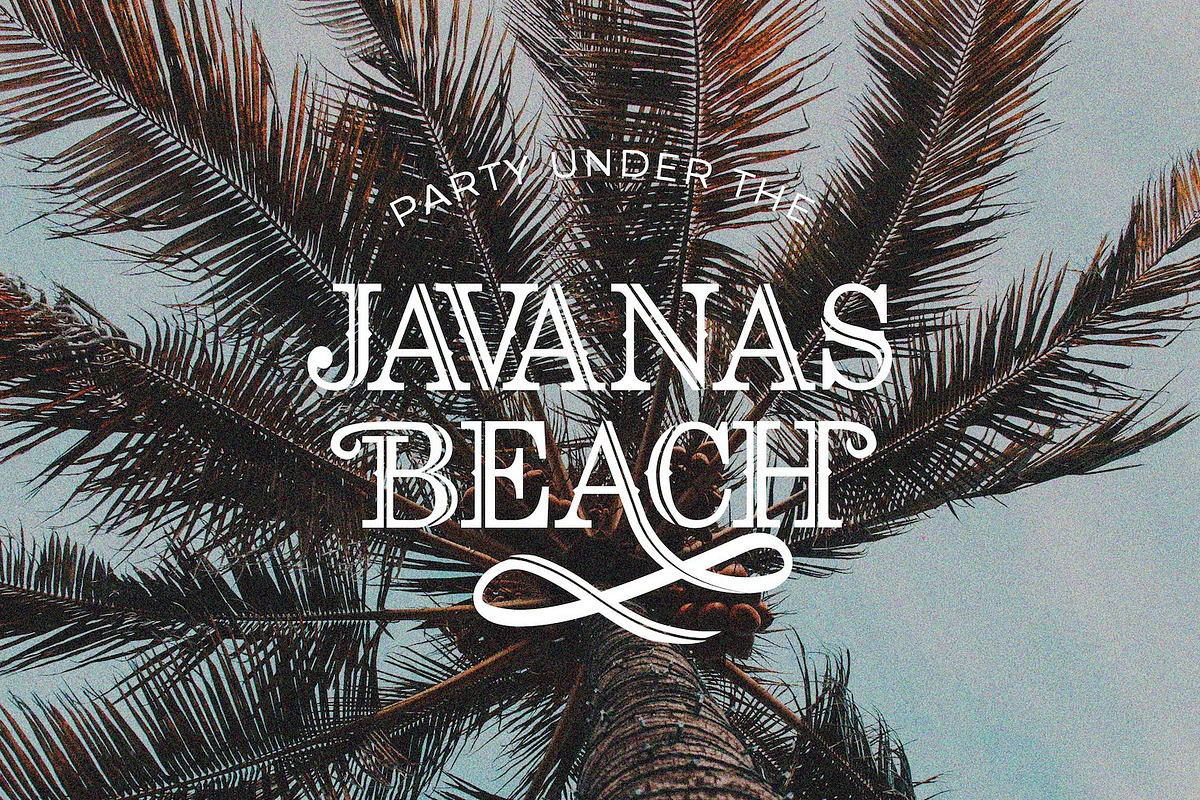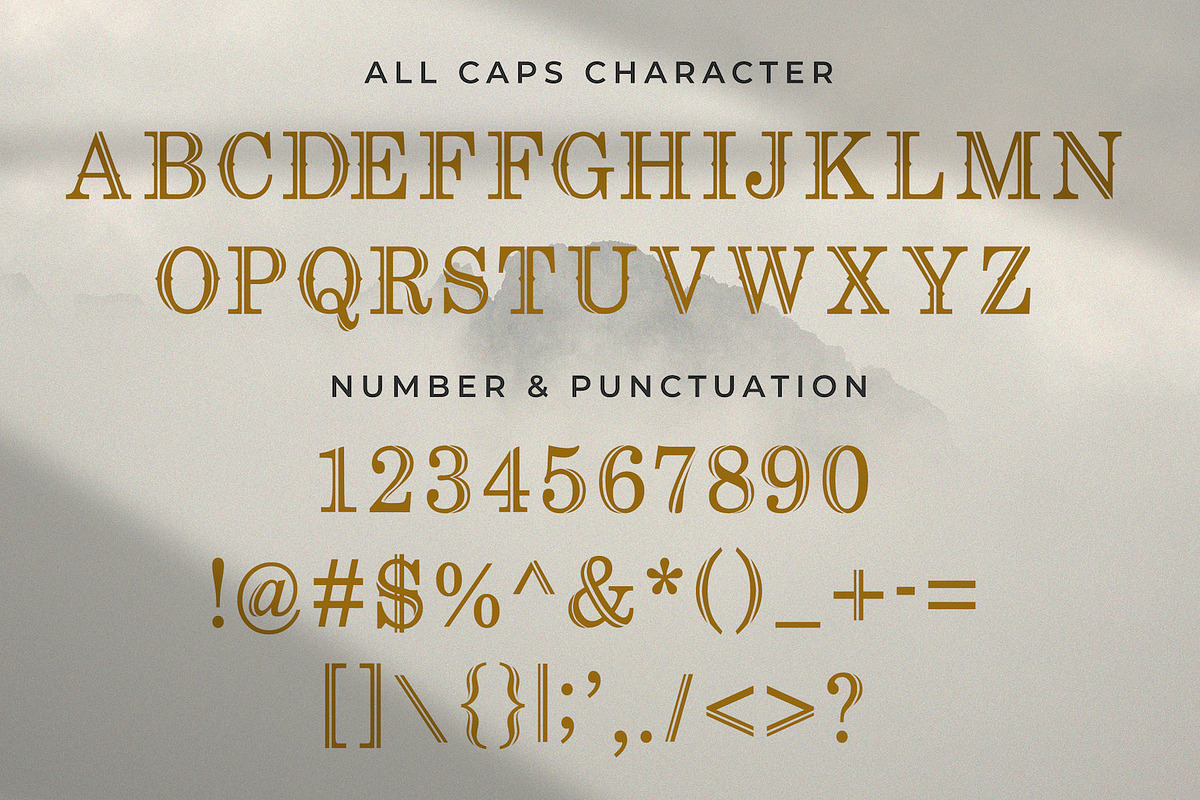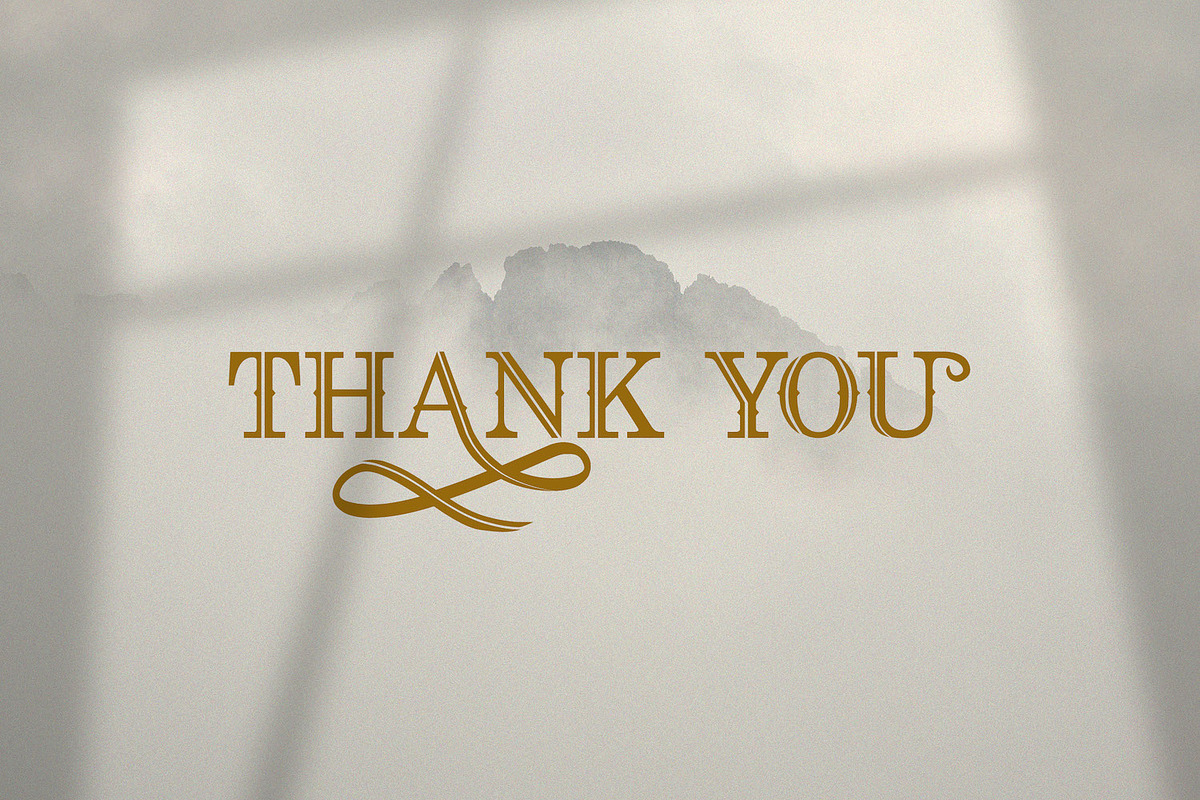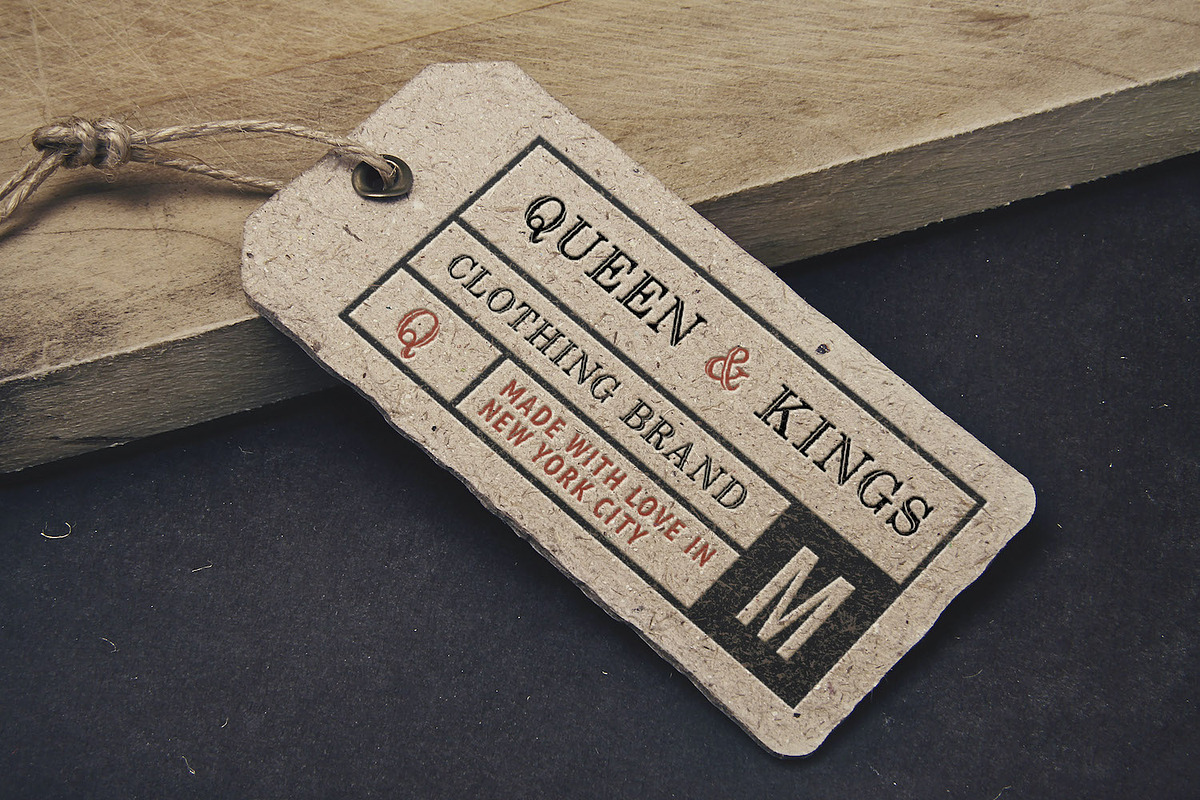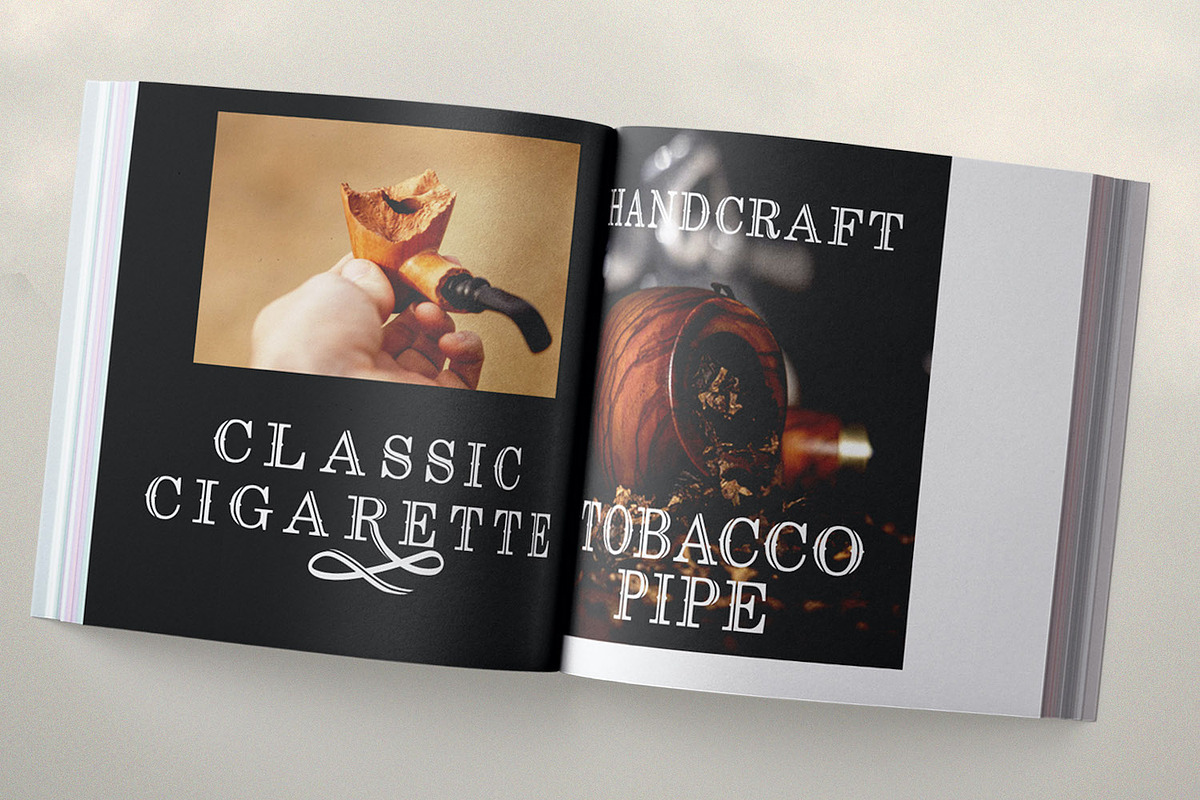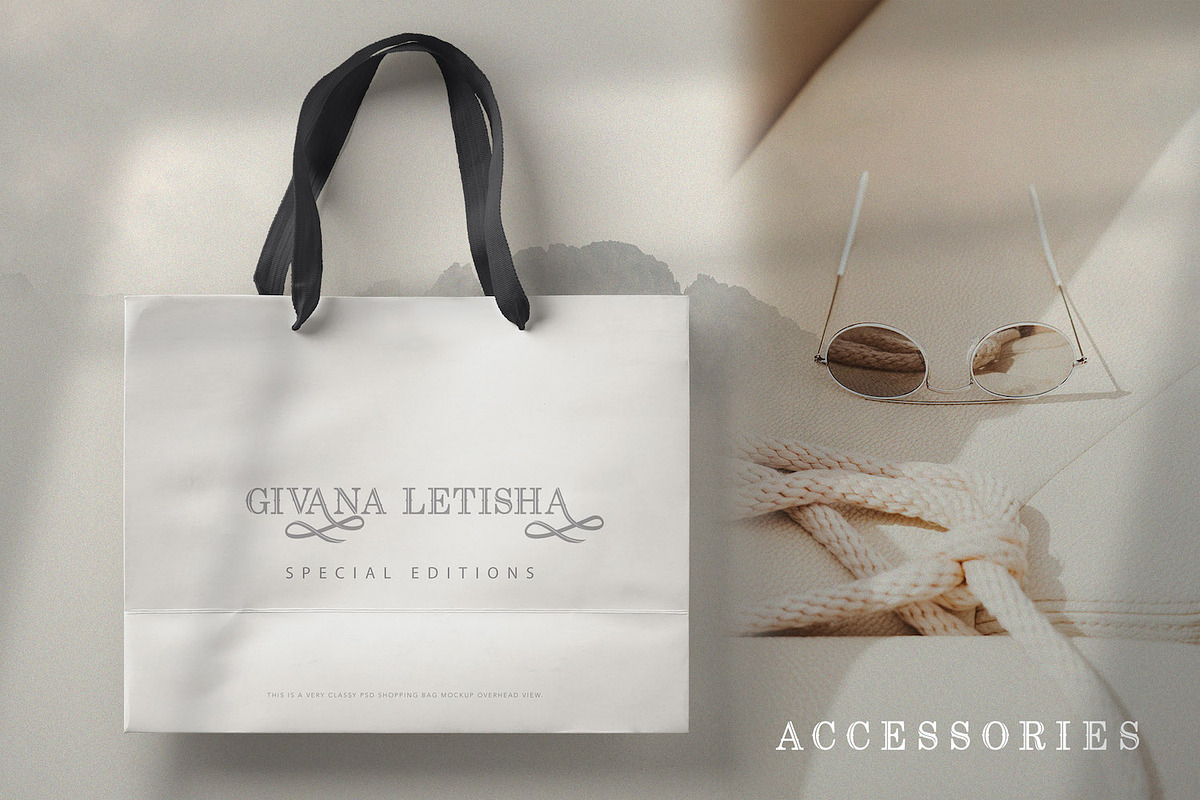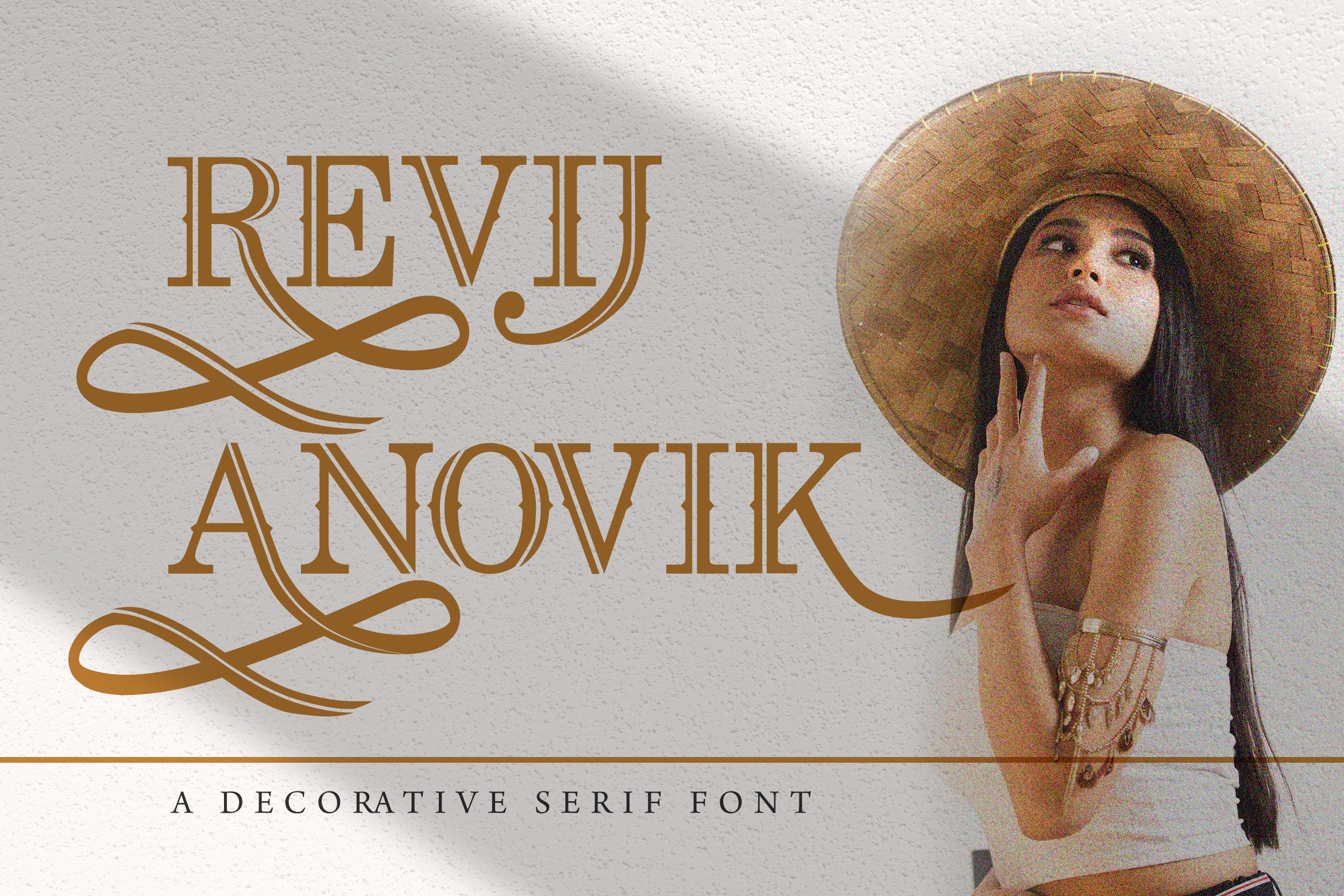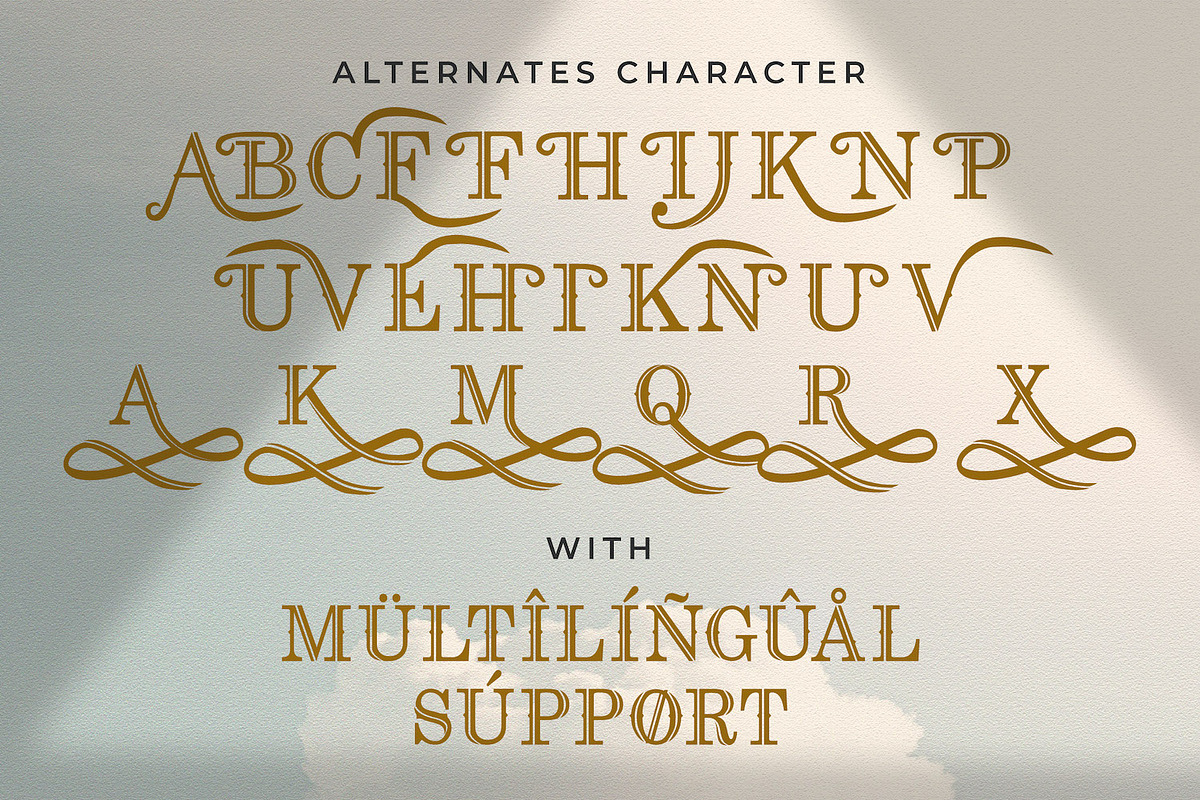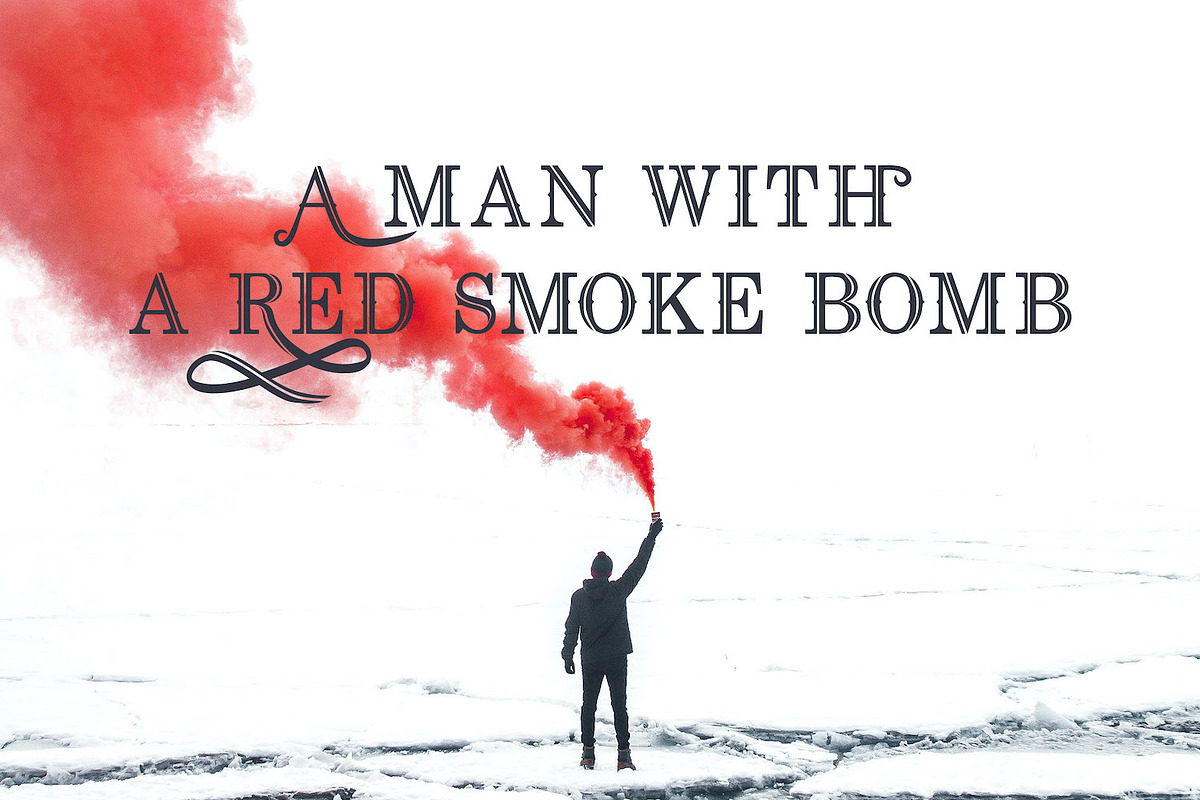
Revij Anovik - Decorative Serif Font
Introducing Revij Anovik - Decorative Serif Font
Revij Anovik is a unique and modern decorative serif font. This playfully conceptual typeface font will look truly outstanding in a wide range of contexts.